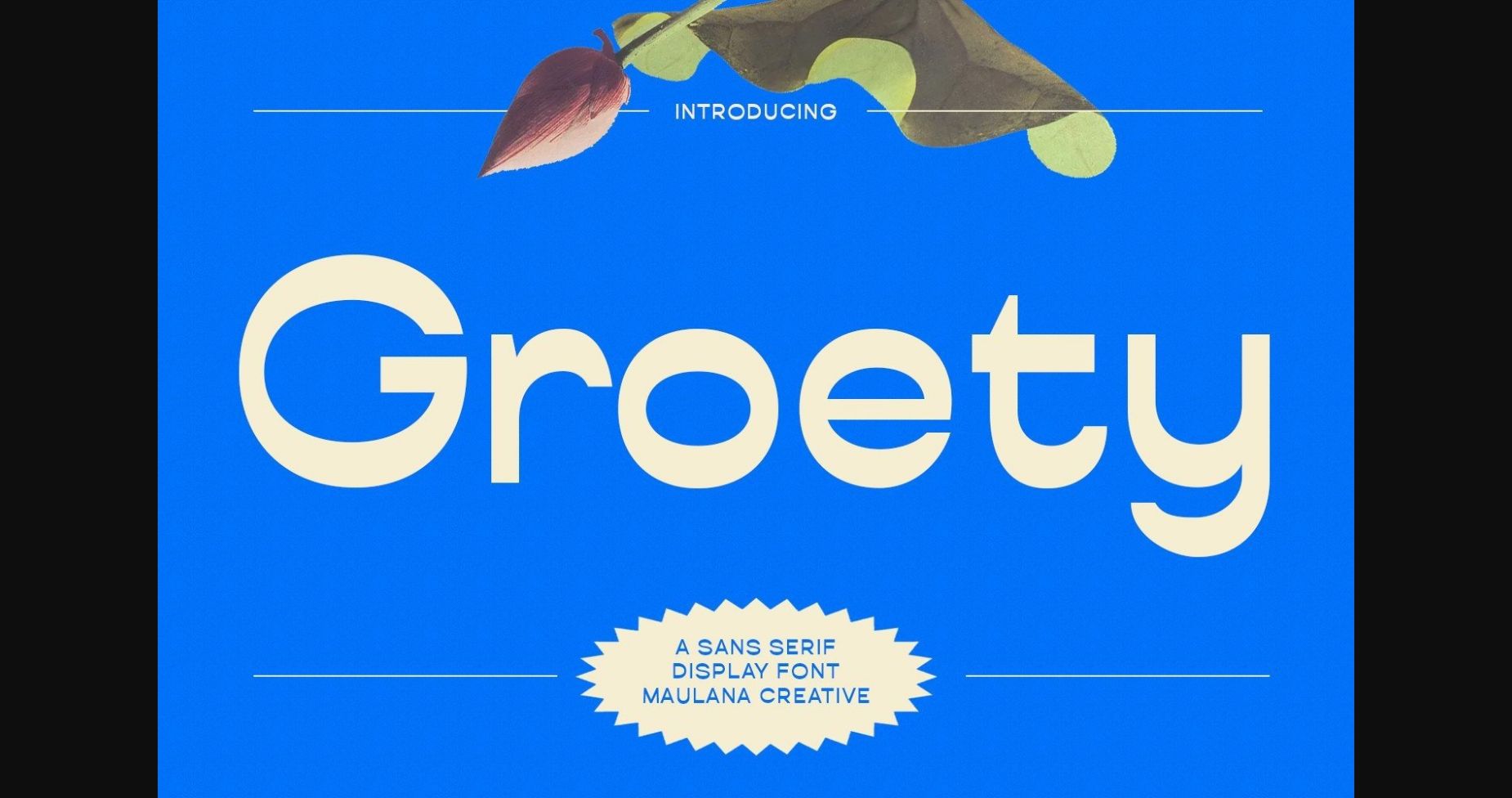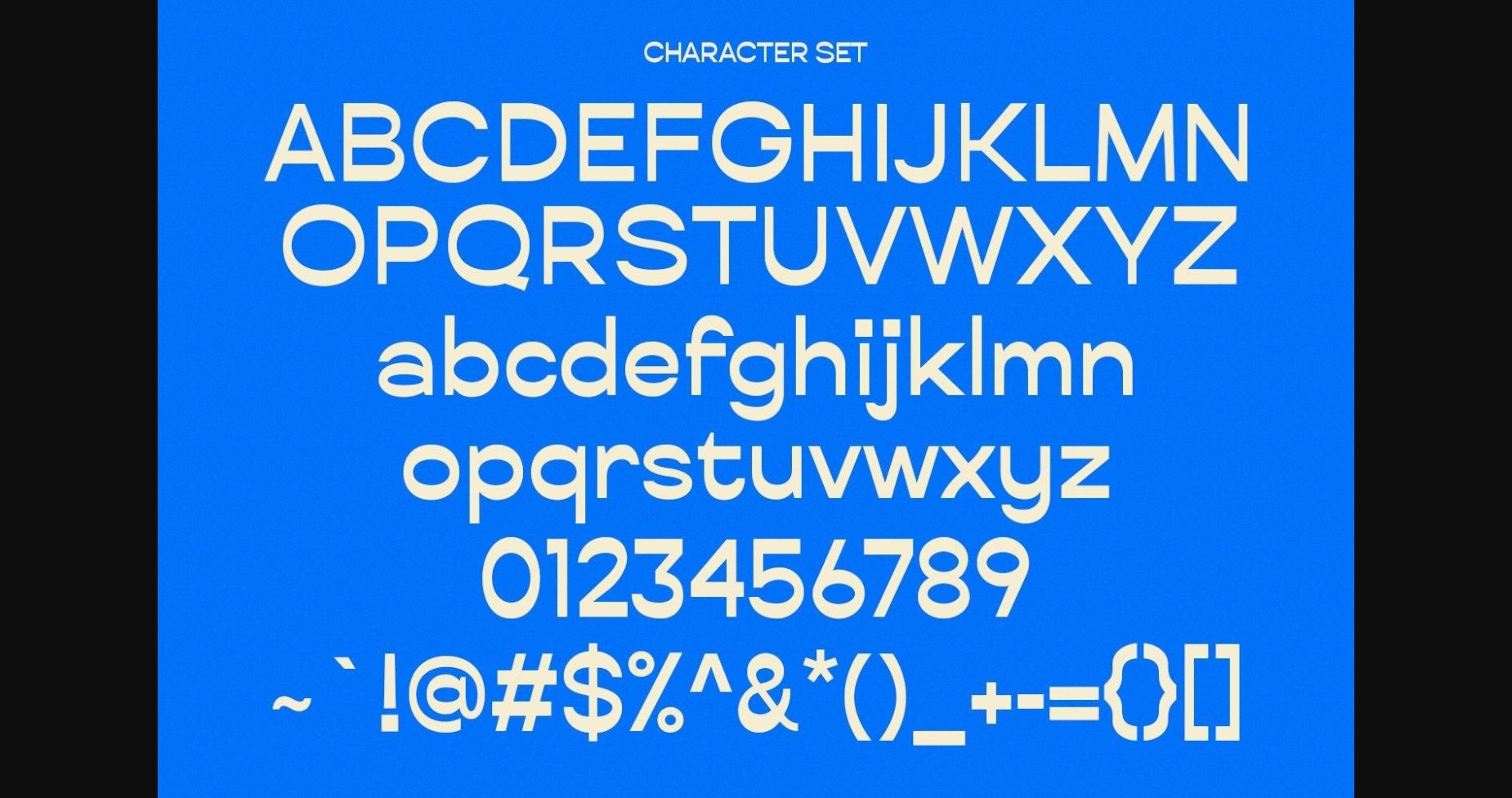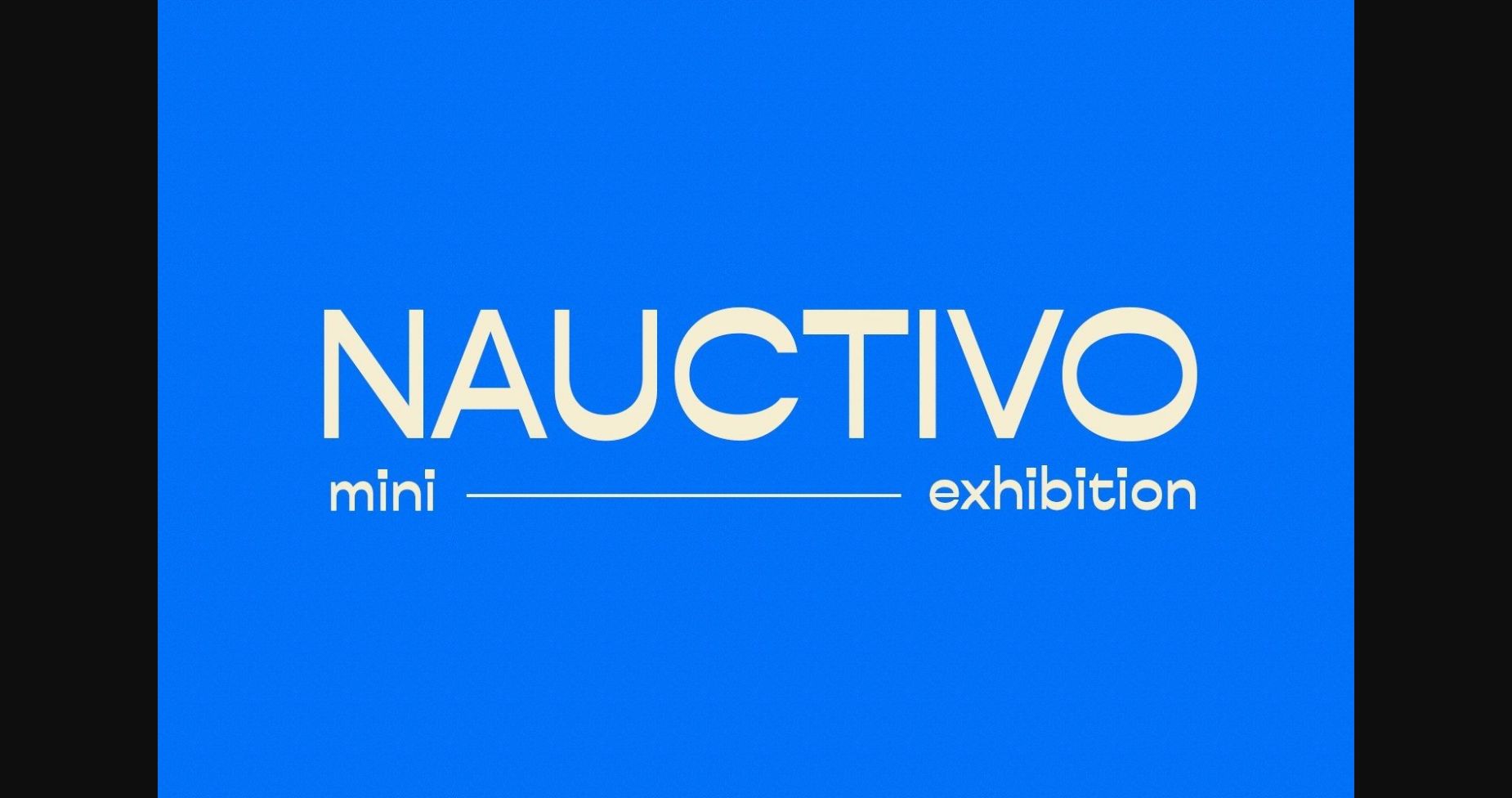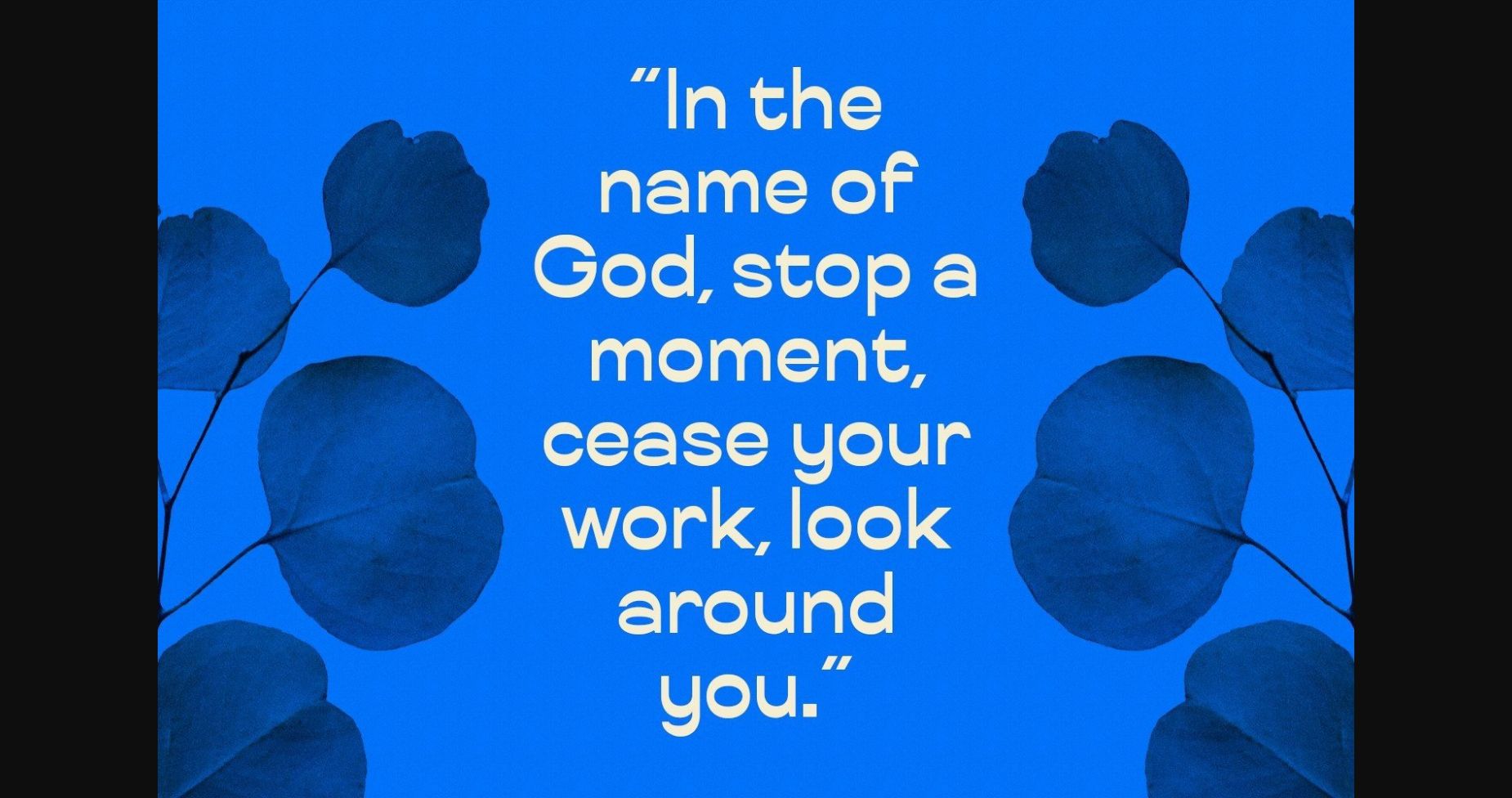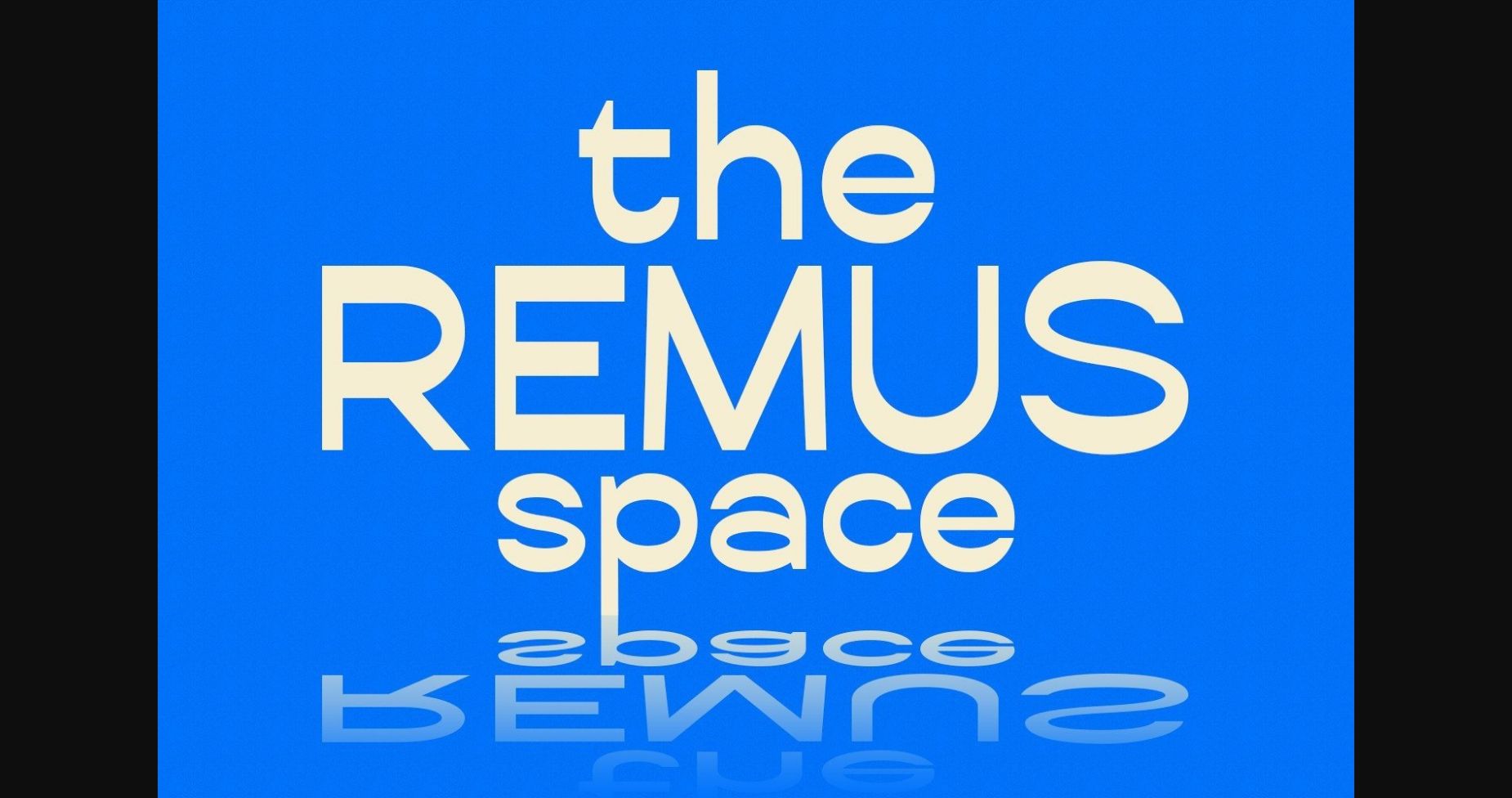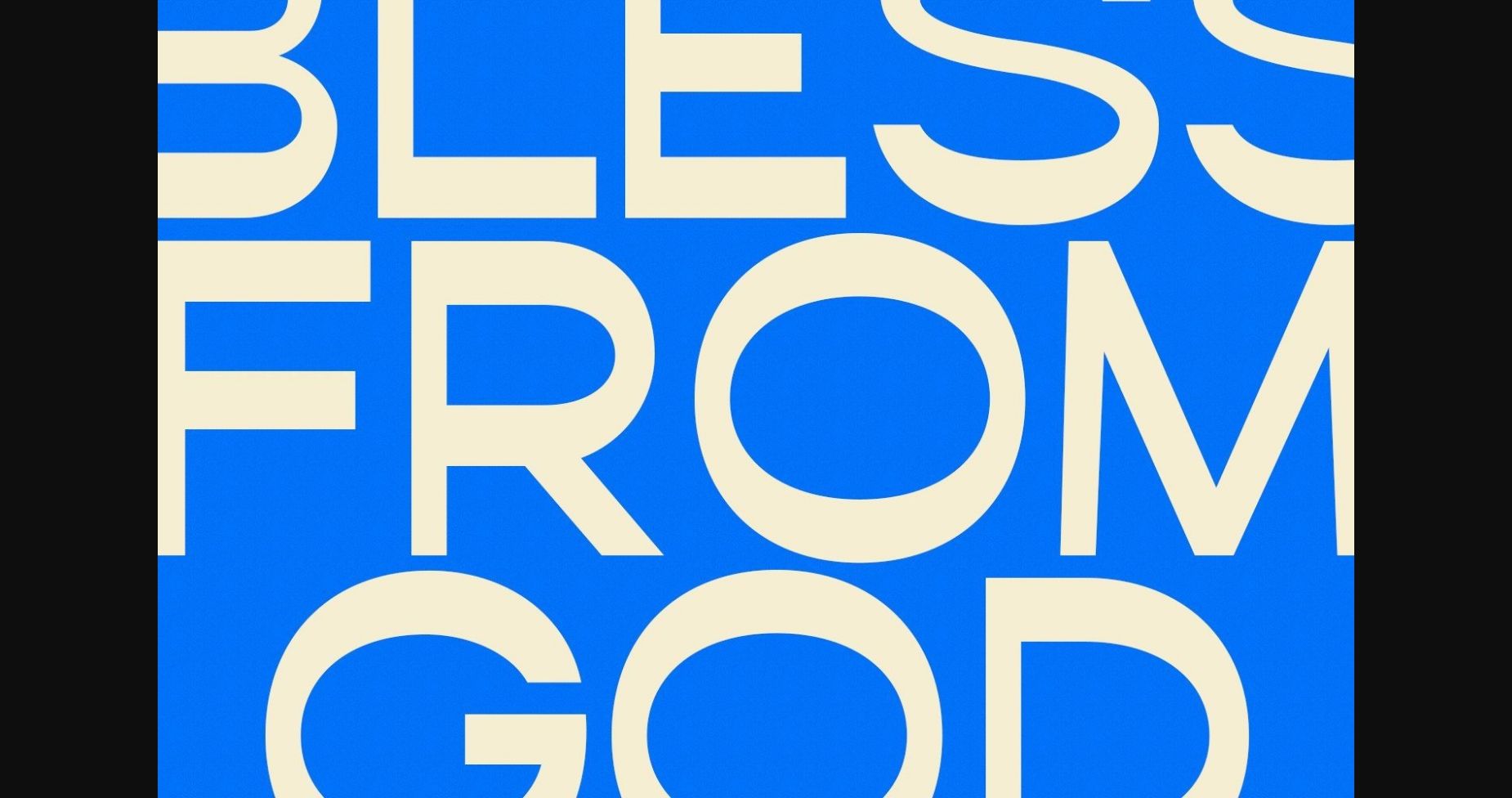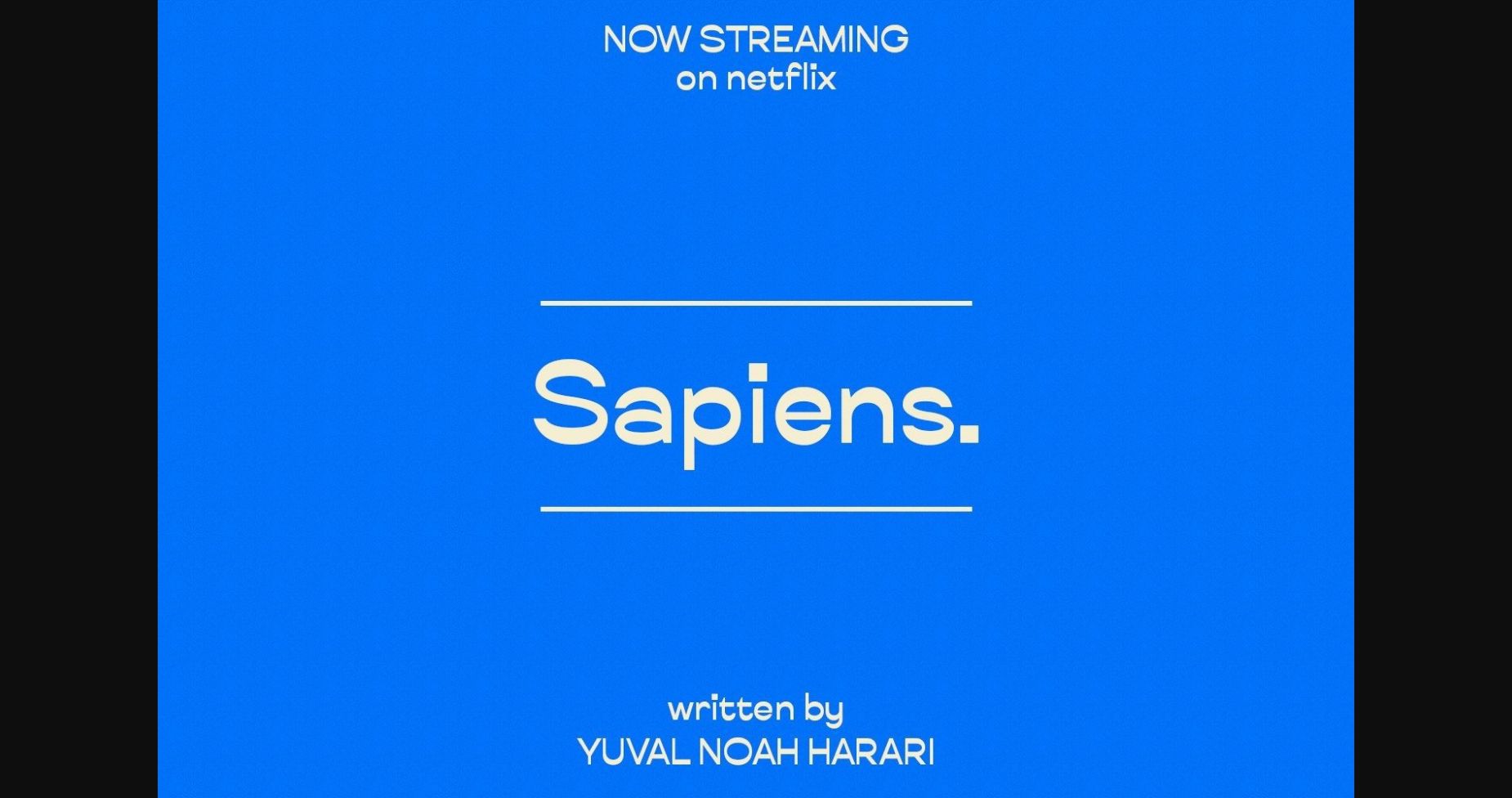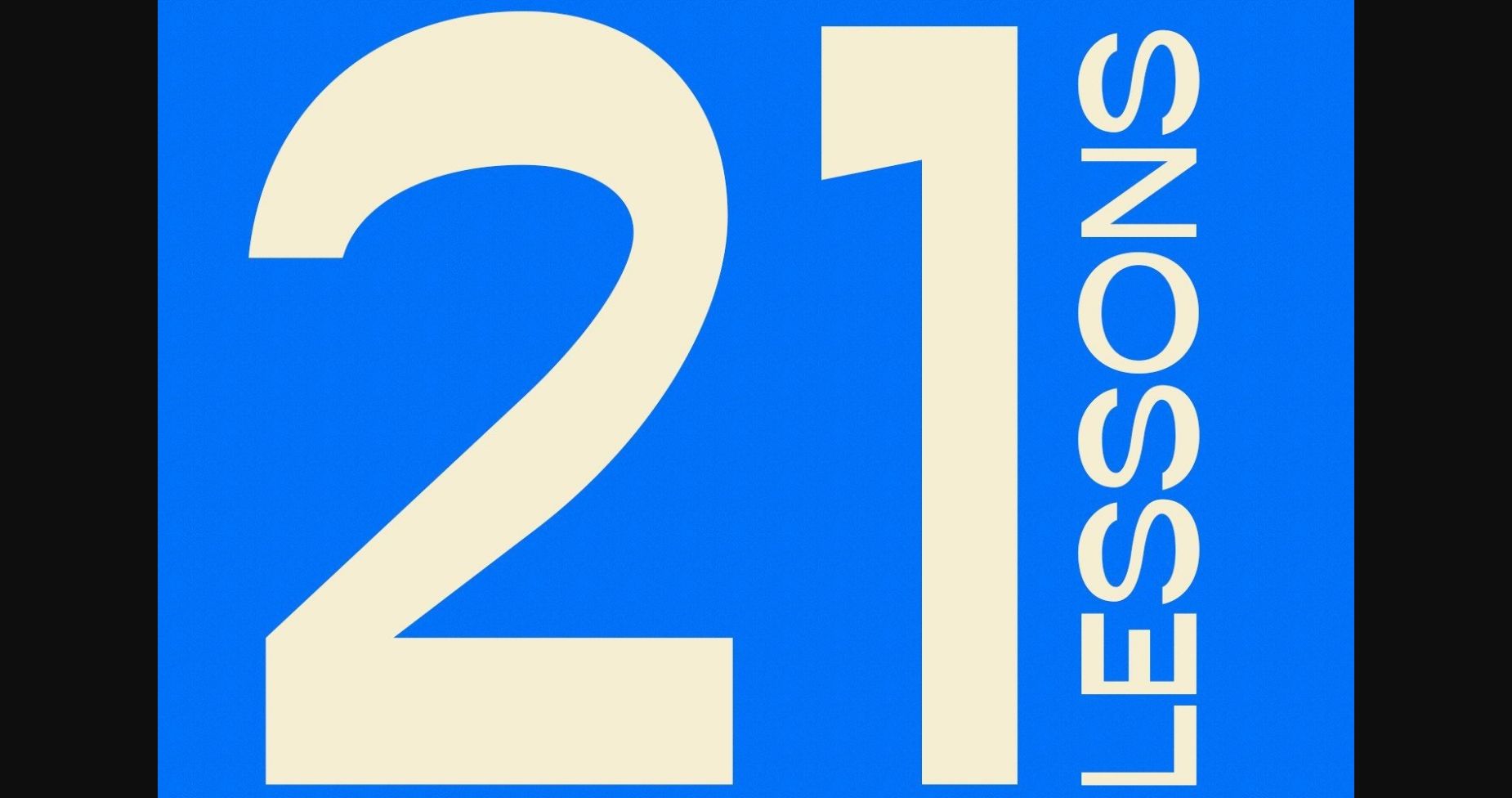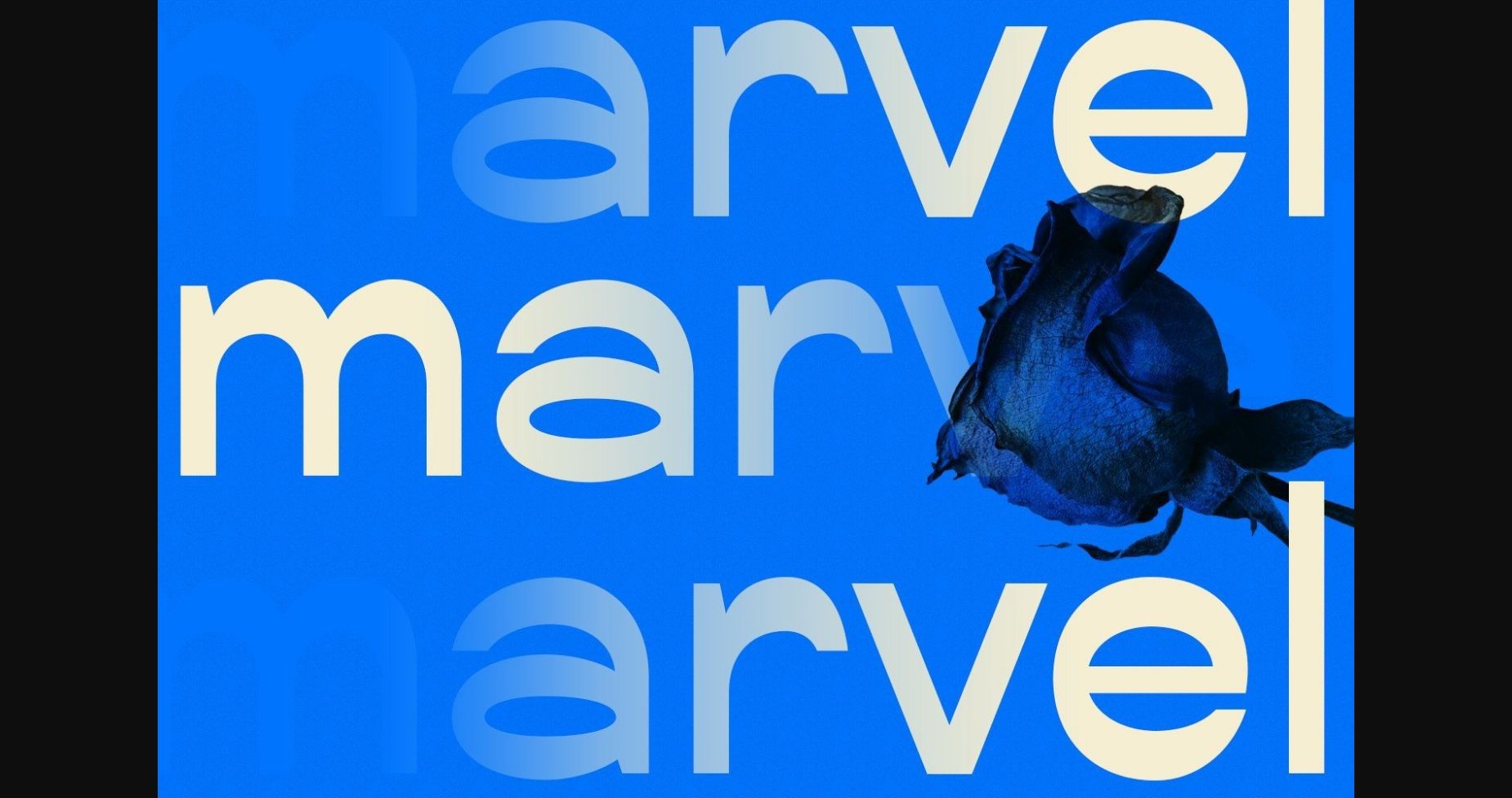
HomeSans Serif FontsGroety Font Sans Serif Fonts Groety Font FacebookXPinterestWhatsApp 1 of 11 ... Groety Font Poster 2... Groety Font Poster 3... Groety Font Poster 4... Groety Font Poster 5... Groety Font Poster 6... Groety Font Poster 7... Groety Font Poster 8... Groety Font Poster 9... Groety Font Poster 10... Groety Font Poster 11... About Groety Font Groety is a modern sans display font. No matter the topic, this font will be an incredible asset to your fonts’ library, as it has the potential to elevate any creation. DOWNLOAD NOW People also explored California Font Sharmin Font Riana Maria Font Sourdough Font Christmas and Santan Font Phesttara Font Sunday Autumn Font Bakery Lover Font Dettiruka Font 413 0 TagsGroetyGroety Font Previous articleBc Basic FontNext articleMangos Font LEAVE A REPLY Cancel reply Comment: Please enter your comment! Name:* Please enter your name here Email:* You have entered an incorrect email address! Please enter your email address here Website: Save my name, email, and website in this browser for the next time I comment. Personal Use Free Frizton Personal Use Free Read more about this font Written by Hand Personal Use Free Read more about this font Pinky Personal Use Free Read more about this font Choco Shake Font Personal Use Free Read more about this font BLOG Free vs Paid Fonts: Why Investing in Premium Fonts Is Worth It Free vs Paid Fonts: Why Premium Fonts Are Worth It in 2025 The debate of free vs paid fonts continues in the design world. While... Best Fonts for YouTube Videos: Make Your Thumbnails Stand Out How to Install and Use Fonts on Windows, macOS, and Web Projects Where to Buy American Fonts Online in 2024